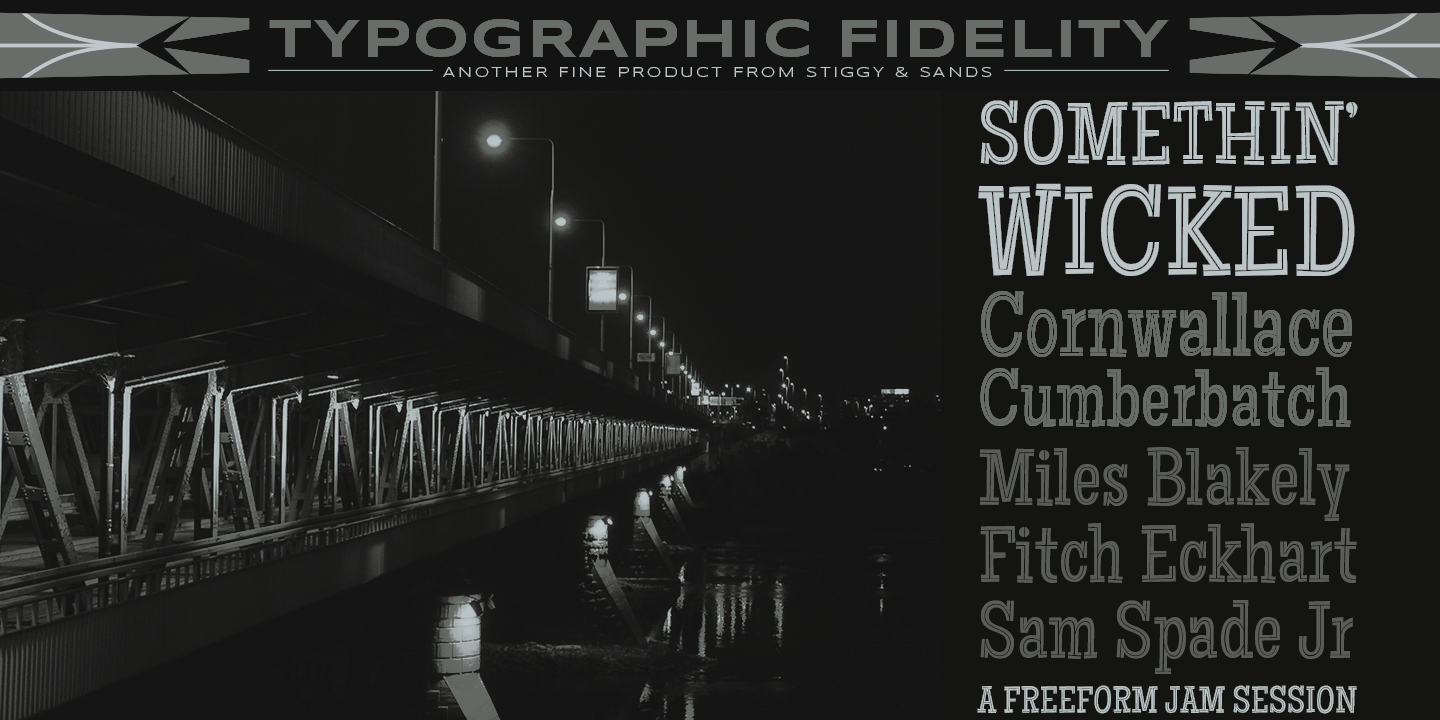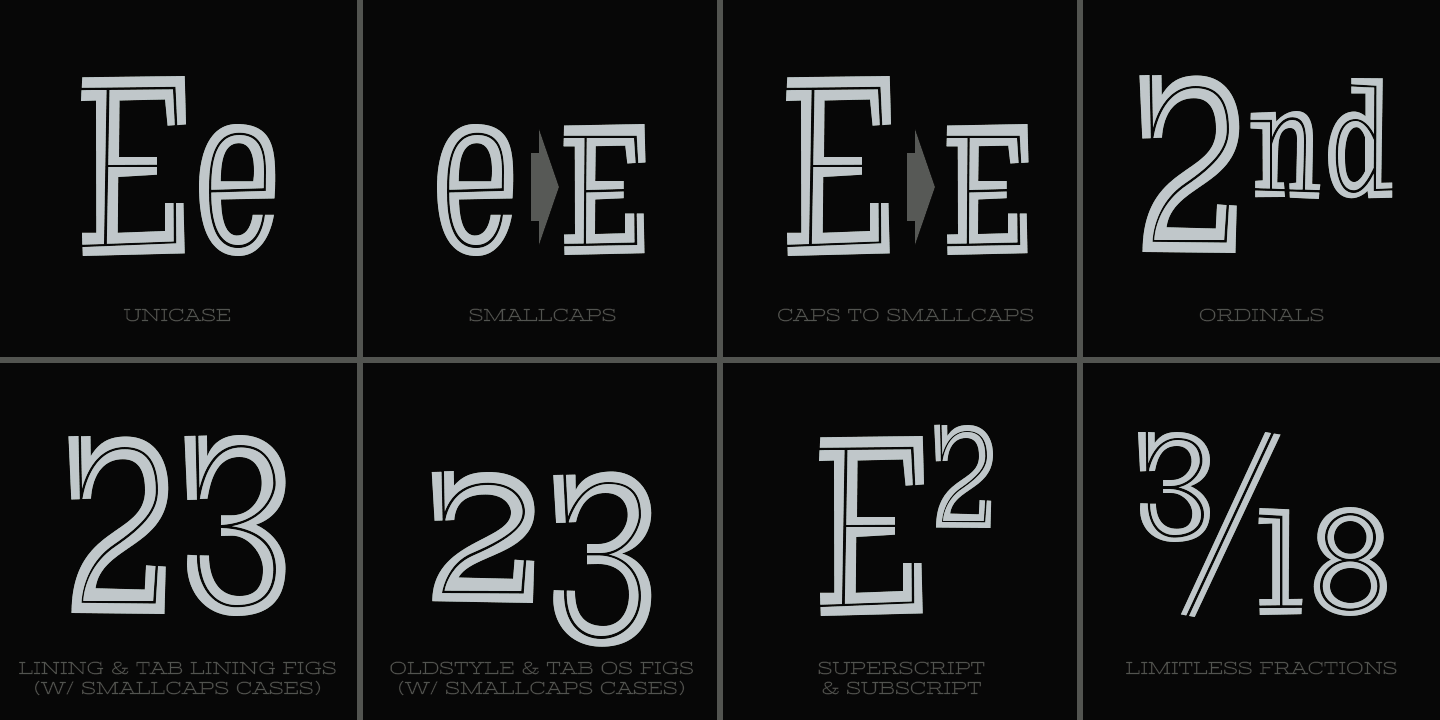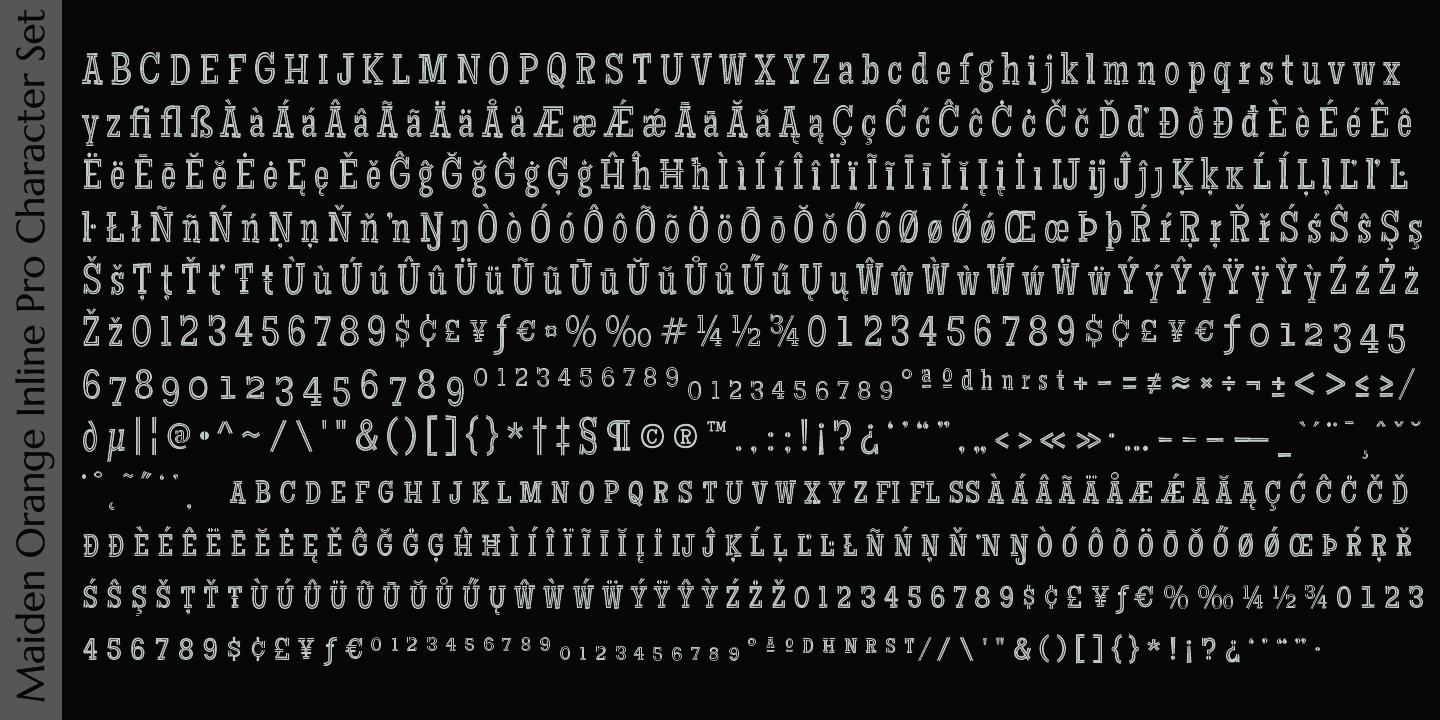
About Maiden Orange Inline Pro
A festive spin off our Maiden Orange Pro typeface, Maiden Orange Inline Pro comes packed with all of the features of the original Maiden Orange Pro typeface, but adds a little more visual flavor with hand drawn inline cuts, leaning even more towards the custom hand lettered 1950's advertisements that inspired the original. Clean and legible, while also being offbeat and friendly, this font lends itself to a wide variety of uses. The SmallCaps and extensive figure sets offer a slightly more serious tone as well as a wider range of design use.
Opentype features include:
- SmallCaps.
- Full set of Inferiors and Superiors for limitless fractions.
- Tabular, Proportional, and Oldstyle figure sets (along with SmallCaps versions of the figures).
- Stylistic Alternates for Caps to SmallCaps conversion.
The Maiden Orange Inline Pro font family includes 646 glyphs.